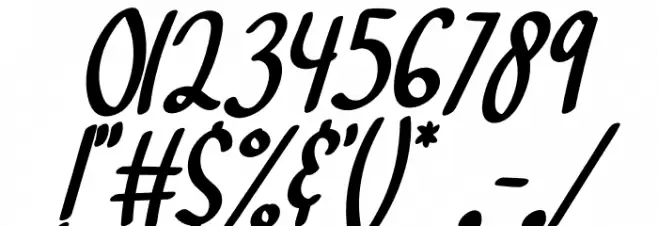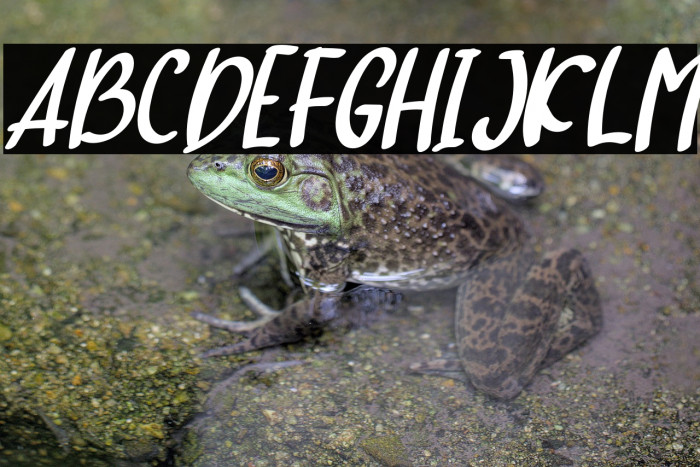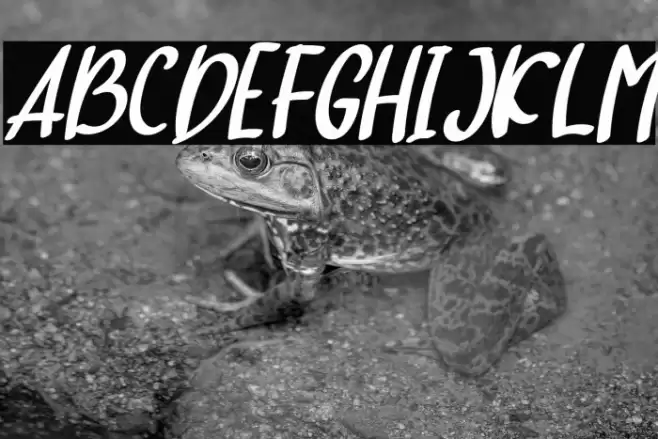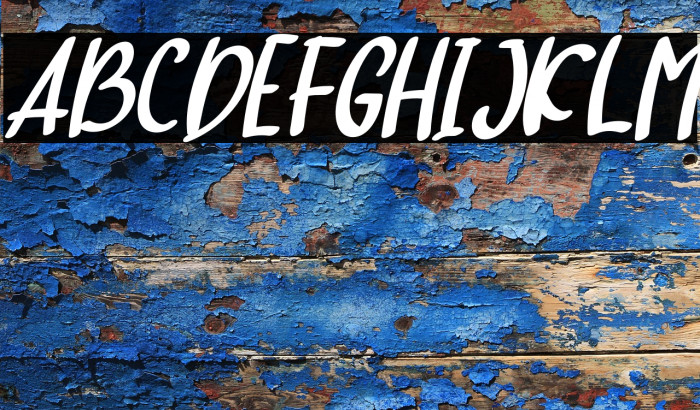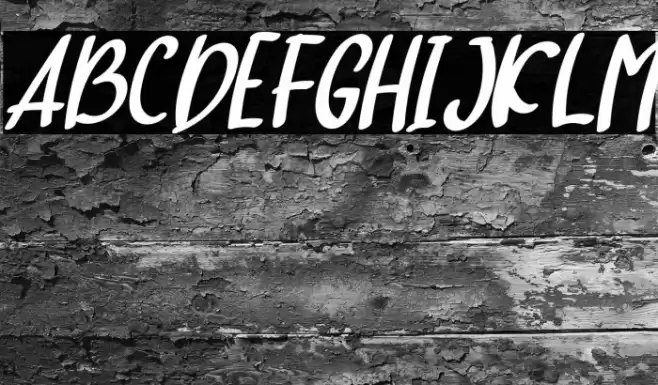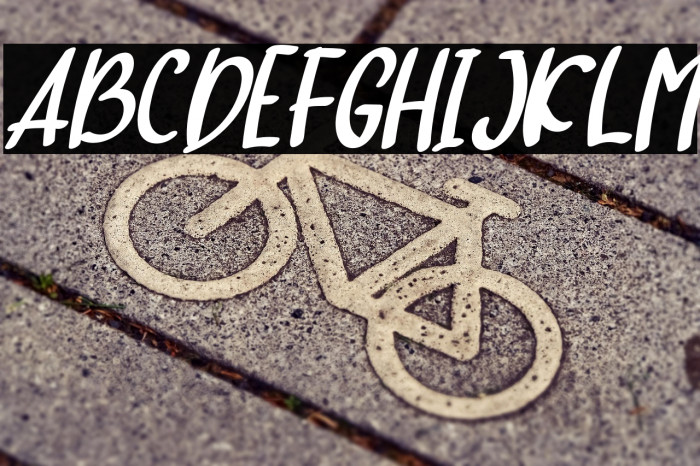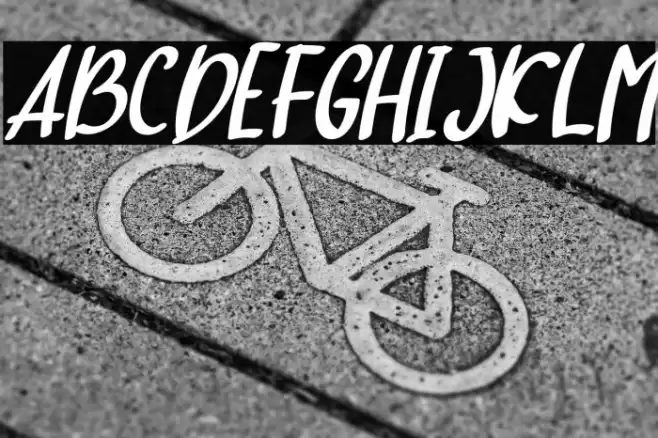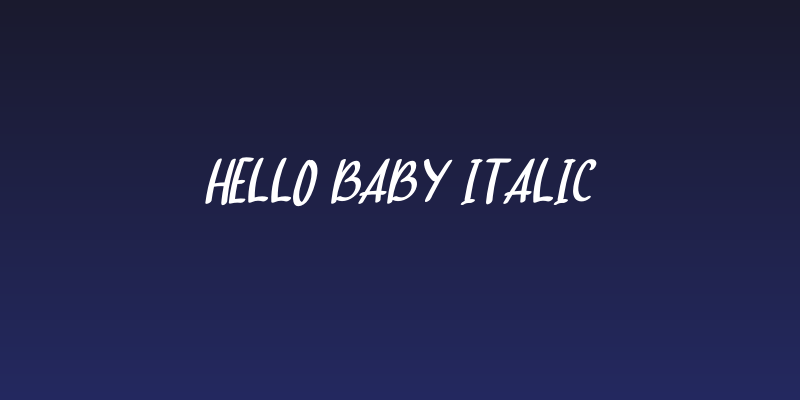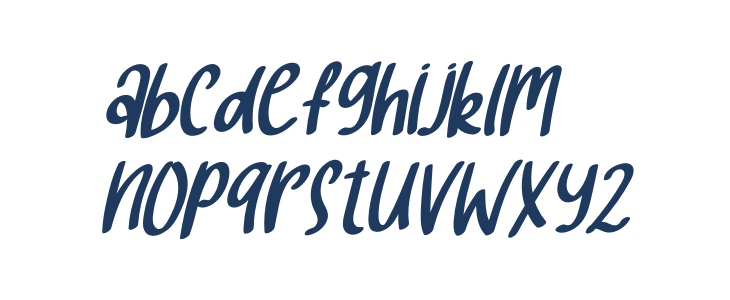
hello baby Italic Font
hello baby Italic Description
This font features a playful and energetic script style with a handwritten feel. The letters are bold and slightly slanted, giving an italicized appearance that adds a dynamic flow to the text. The strokes are thick and consistent, providing a strong visual impact. The characters are closely spaced, enhancing the cohesive look of the text. The font includes a full set of uppercase and lowercase letters, numbers, and a variety of special characters, making it versatile for different uses. Its lively and informal style makes it suitable for creative and casual projects.
| Proposed Projects | Ideal for greeting cards, playful branding, children's book covers, and social media graphics. |